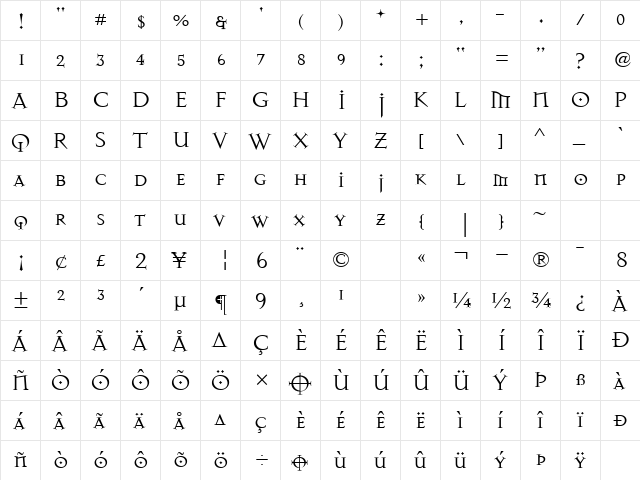
MasonAlternate Regular Font Preview
MasonAlternate Regular
MasonAlternate Regular Font Details
Design Context for MasonAlternate Typeface
MasonAlternate offers clean, dependable letterforms without strong stylistic allegiance, making it a practical choice for designers who need flexibility.
Pro Tip: Pair MasonAlternate with a font of contrasting weight or personality to build a more expressive typographic hierarchy.